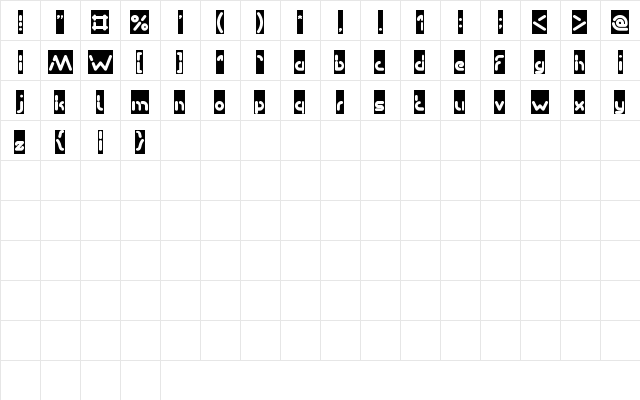
Stay Kind and REPEAT-Inverse Normal Free Font
Stay Kind and REPEAT-Inverse Normal
Design Context for Stay Kind and REPEAT-Inverse
Stay Kind and REPEAT-Inverse is a composed and adaptable typeface that performs quietly and consistently across a wide range of design contexts.